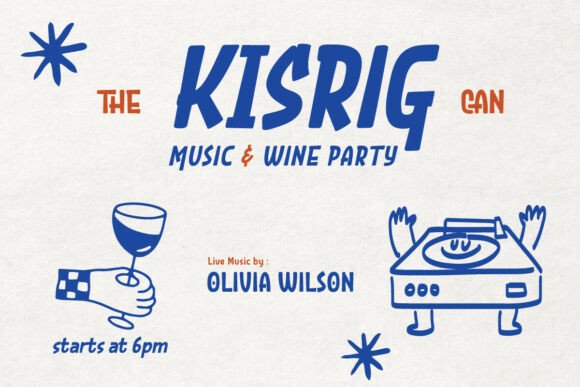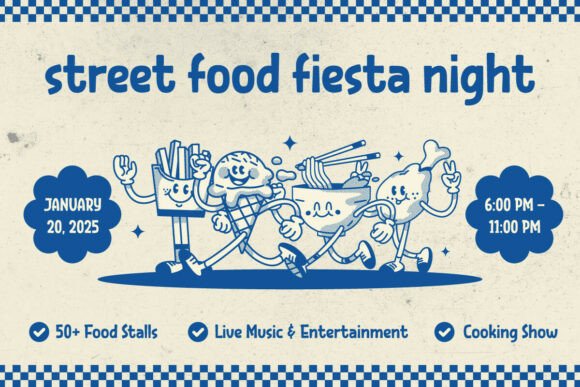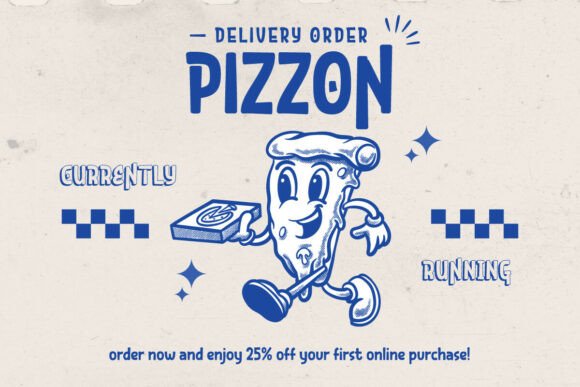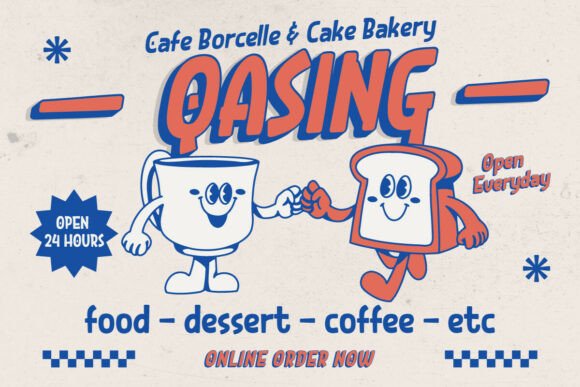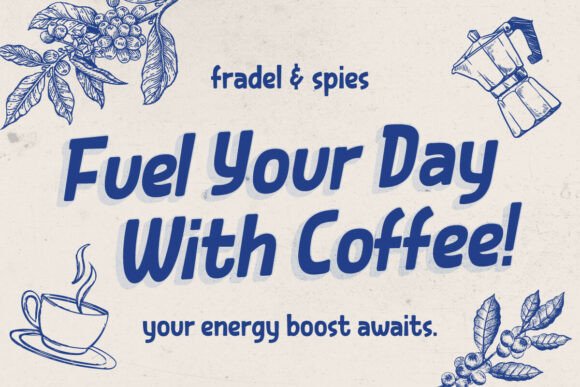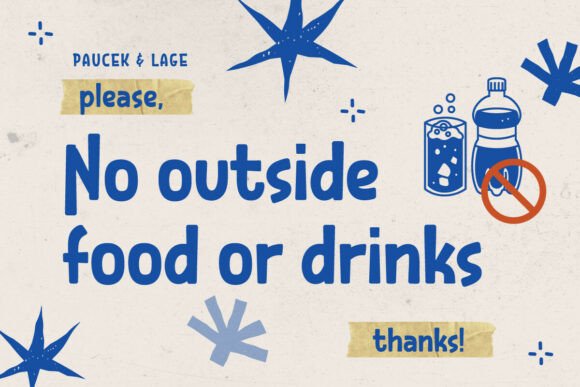
Introduction to Sign Ron Font Font
Fonts play a crucial role in design, and the Sign Ron Font font is a typeface that brings both character and versatility to any project. Whether you’re working on a branding project, a website, or a print design, the Sign Ron Font font offers a unique style that can elevate your work.
Introducing Sign Ron, a classic sign painting display font that brings vintage charm and bold craftsmanship to your designs.
Featuring four versatile styles—Regular, Slant, Shadow Regular, and Shadow Slant—Sign Ron offers flexibility and layered creativity for a wide range of projects With its hand-painted feel, elegant curves, and impactful strokes, this font is perfect for storefront signs, café menus, logo designs, packaging, event posters, and retro branding.
Key Features of Sign Ron Font Font
Why Choose Sign Ron Font Font?
The Sign Ron Font font is more than just a typeface – it’s a design tool that helps you communicate your message with style and clarity. Its unique character set and versatile design make it suitable for a wide range of applications, from elegant invitations to bold headlines.
With its carefully crafted letterforms and balanced proportions, the Sign Ron Font font ensures readability and visual appeal across all mediums.
What makes Sign Ron Font font special?
The Sign Ron Font font stands out with its unique design, exceptional readability, and versatility across various design applications.